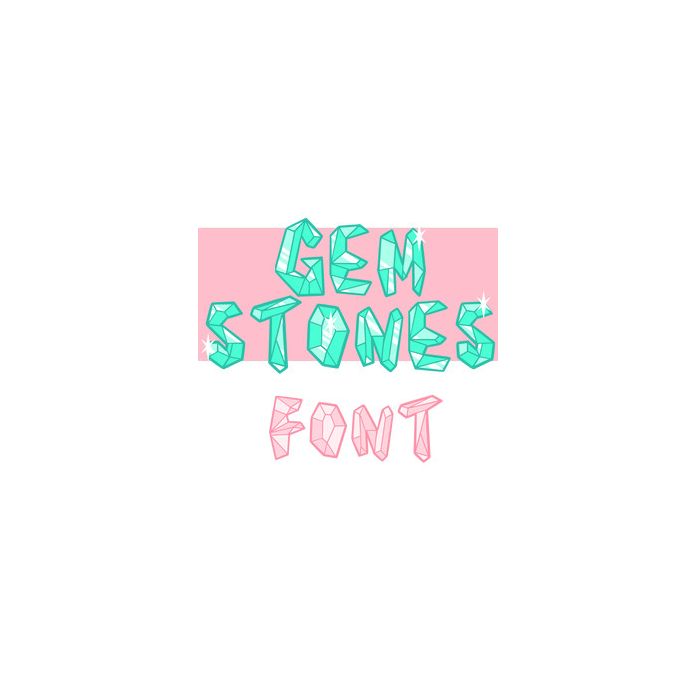
Use uppercase letters and numbers for the outlines and lowercase letters for the facets. By coloring the facets and layer them, you can create really unique crystal-style letters.